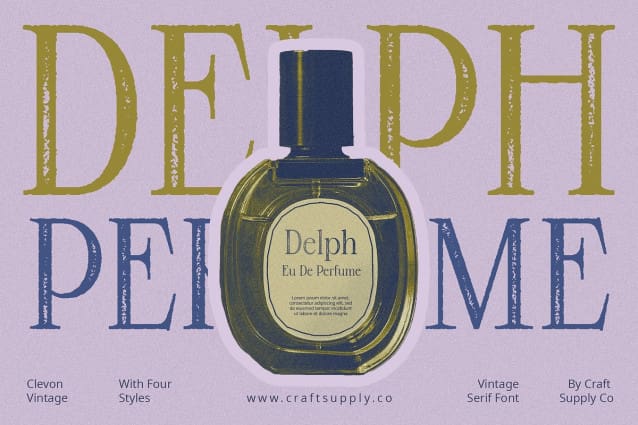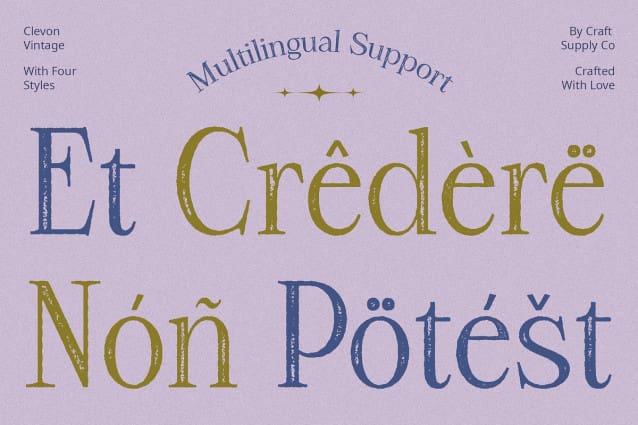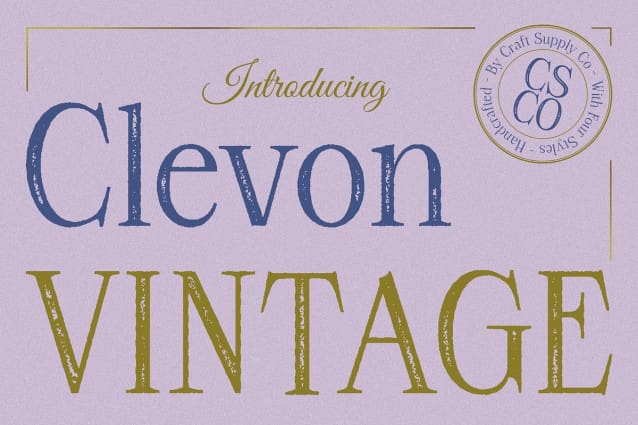
Clevon Vintage Font
Clevon Vintage Font: Vintage Vibes with High Contrast Serif. High Contrast Serif Design Clevon Vintage showcases a distinctive high contrast serif design that captivates attention. Its bold strokes and elegant serifs create a striking visual impact.
Stamp Effect The font is enhanced with a stamp effect, adding a touch of vintage charm and authenticity. Each character bears the unique imprint of a vintage stamp, lending it a nostalgic vibe.
Perfect for Display With its high contrast serif design and vintage stamp effect, This font is ideal for display purposes. It commands the spotlight and brings a sense of retro sophistication to any project.
Versatile Application Despite its vintage appeal, Clevon Vintage is versatile in its application. From branding and signage to editorial designs and invitations, it adds a touch of timeless elegance to various design projects.
Timeless Sophistication with Retro Charm This font offers a perfect blend of sophistication and vintage charm, making it an excellent choice for designers looking to evoke nostalgia and elegance in their projects. Whether used for bold headlines or subtle accents, This font delivers impactful results with its unique design.